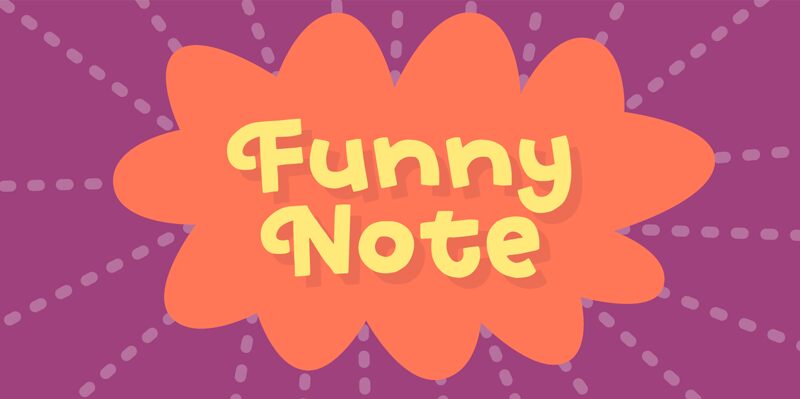
Funny Note, designed by Pizzadude, is a captivating display font that adds a delightful touch of whimsy to any project.
With its bold weight and semi-expanded width, this cartoon-inspired typeface brings playfulness to children's books, party invitations, and animated movie posters. Its quirky design makes it suitable for logo designs seeking a lighthearted vibe or websites wanting to inject some fun into their branding.
Let Funny Note take your creative projects on a hilarious and entertaining journey that will leave a lasting impression.